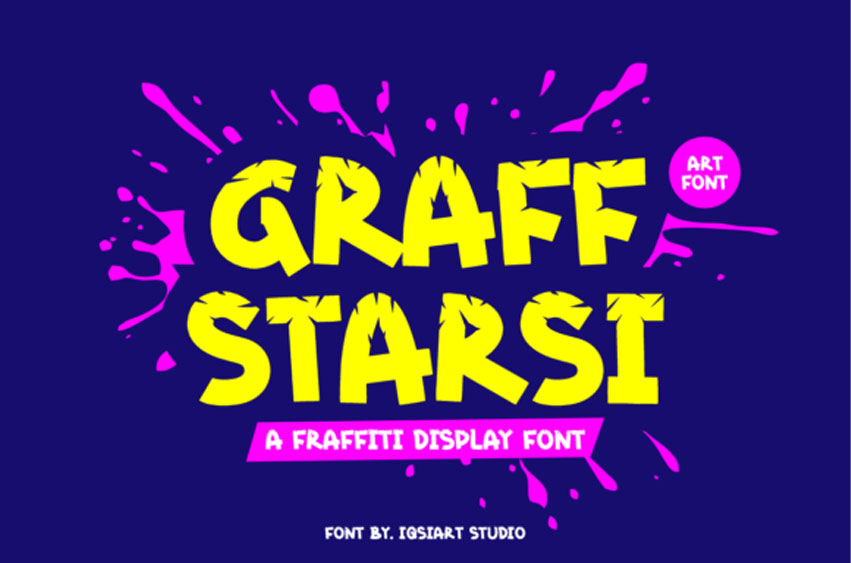
Graff Starsi Font
Graff Starsi Font is an incredibly unique decorative font.
Masterfully designed to become a true favorite, this font has the potential to bring each of your creative ideas to the highest level!